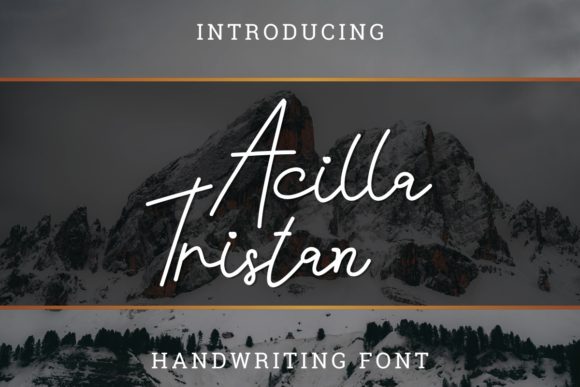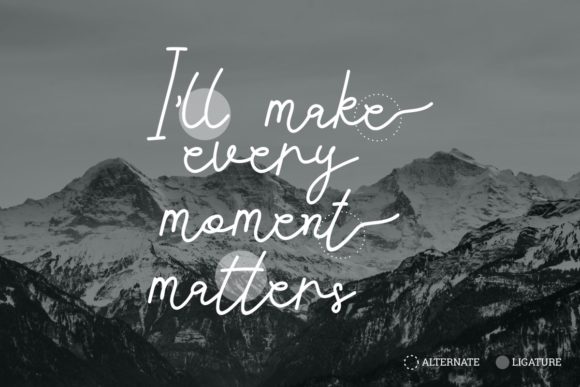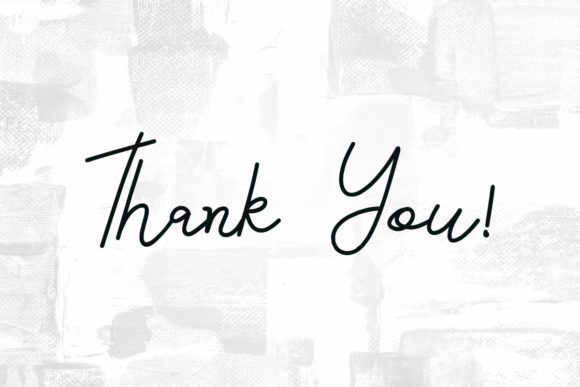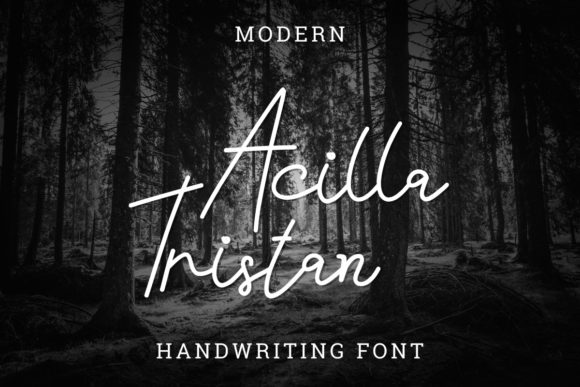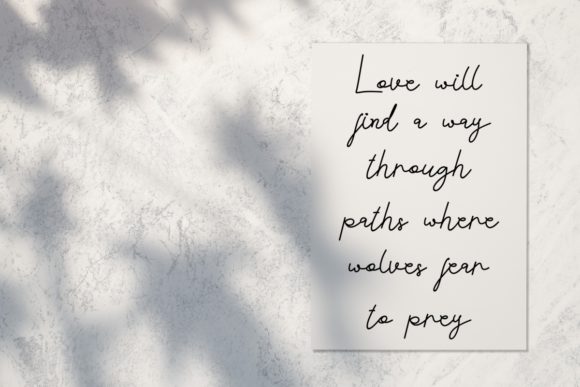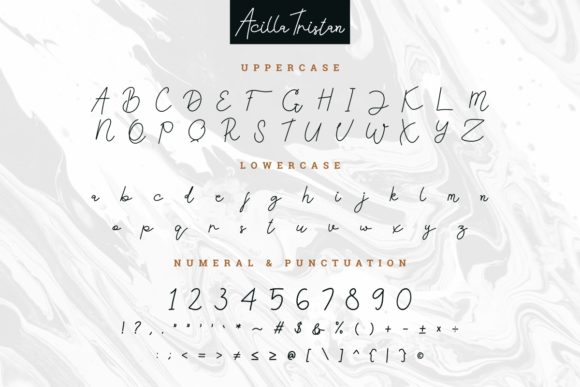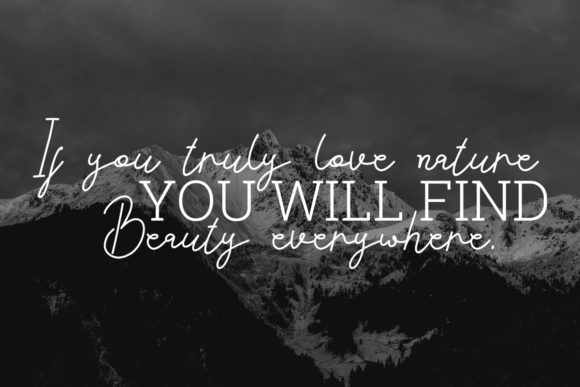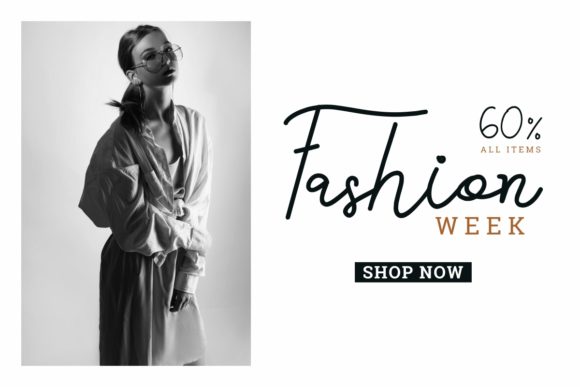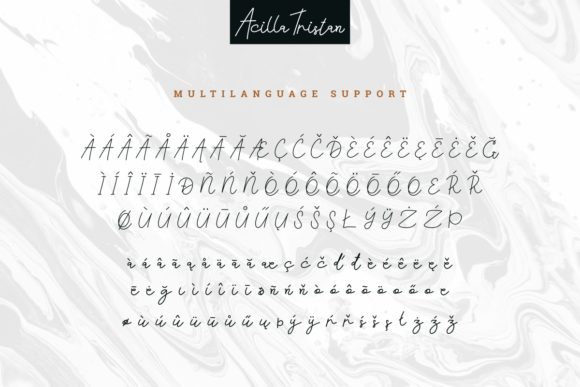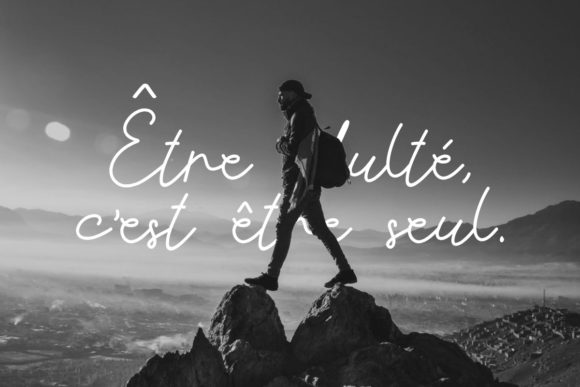
Acilla Tristan Font
About Acilla Tristan Font
Acilla Tristan is a classic signature script font. It has a unique, elegant and beautiful look & feel. It is perfectly suited for a wide variety of projects!